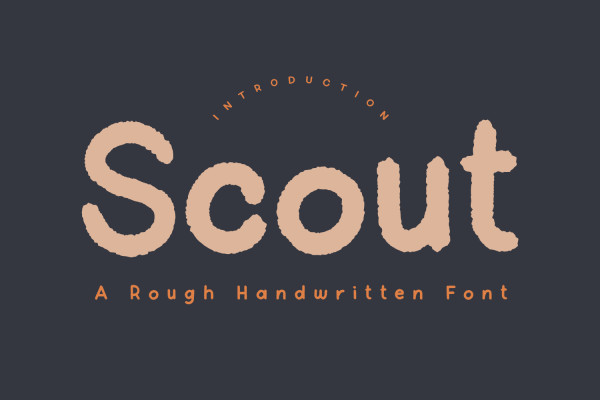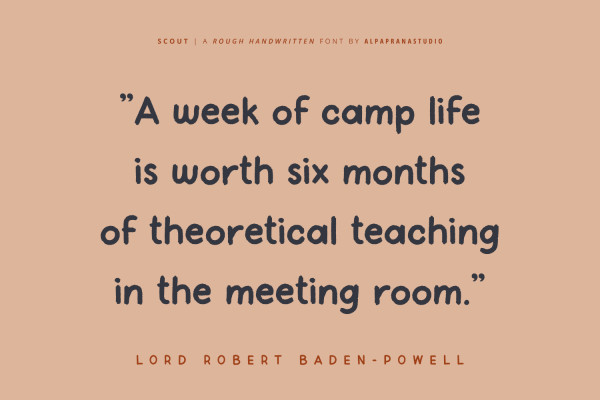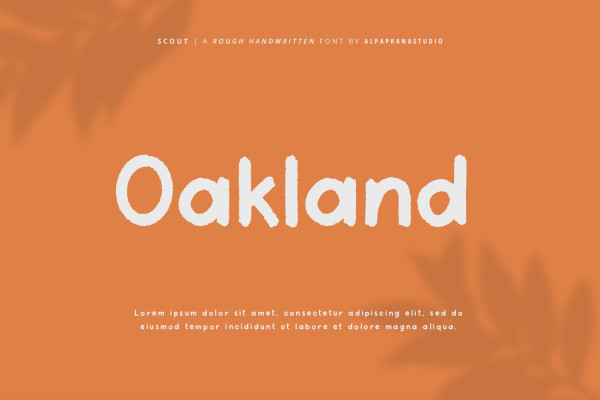
Scout Font
Scout Font is a rough handwritten font with retro modern feels. Scout Font will be perfectly used for Branding, Logo Design, Lettering, Logotype, Clothing, Poster, magazine, packaging, posters, shopping bags, t-shirts, book covers, photography, special events and other design project.